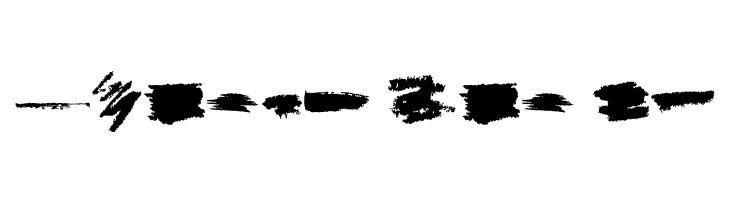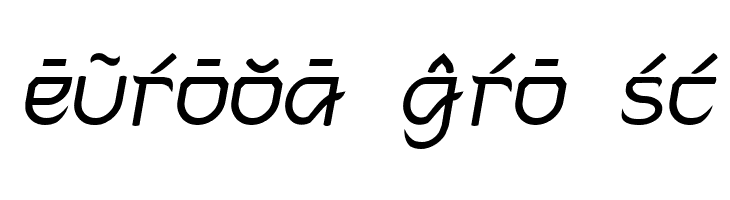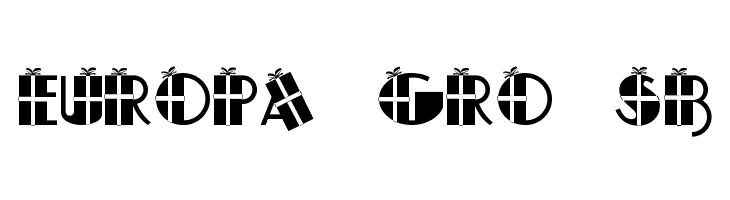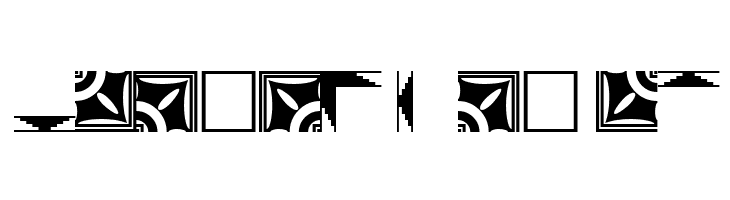
Hand-drawn decorative banners in black and white.
Abstract brushstroke marks with no readable characters.
( Apostrophic Lab - pedroreina.net/apostrophiclab/ )
A dynamic oblique font with artistic swashes and moderate contrast.
( CROLrene )
A festive, gift box-themed font with bold, geometric characters and ribbon accents.
( Charles Minow - www.henge.com/~minow/fonts.html )
A decorative geometric pattern font with Southwestern influences.
( Chay's Graphic Design Studio - web.archive.org/web/20010405045049/grendels.8k.com/pages/fonts.html )
Ornamental dingbat font with decorative frames and borders.
( CupcakeSmiles )
A playful, handwritten font with heart-shaped accents and a whimsical style.
( Cyberbuny Creations )
Ornamental dingbat font with diverse decorative motifs and frames.
( Digital Magic - www.graphicdesignplus.com/helen/digitalmagic/ )
Ornamental dingbat font with intricate, symmetrical motifs.
( Digital Magic - www.graphicdesignplus.com/helen/digitalmagic/ )
Religious pictogram dingbat font with bold, high-contrast icons.